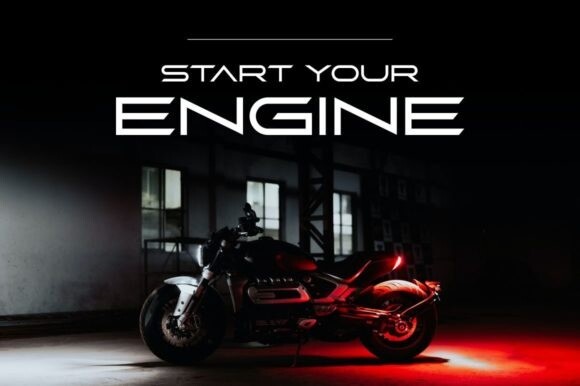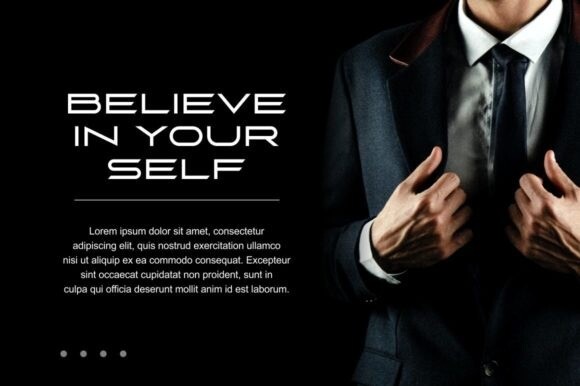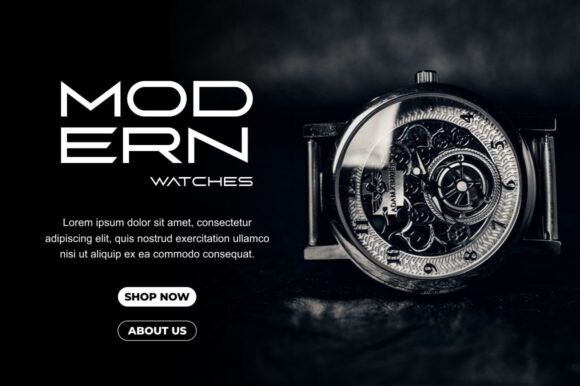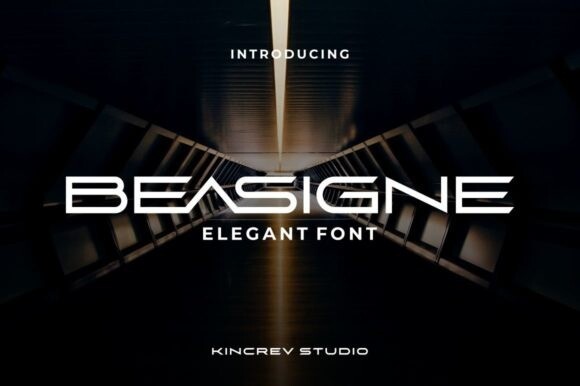
Beasigne Font
Beasigne Font is a stunning sci-fi sans perfect for headlines, editorials, branding, apparel, posters, web design, social media, packaging, labels, movies, and typographic projects. If you need a typeface that’s clean, minimal, and futuristic, then Beasigne is for you.